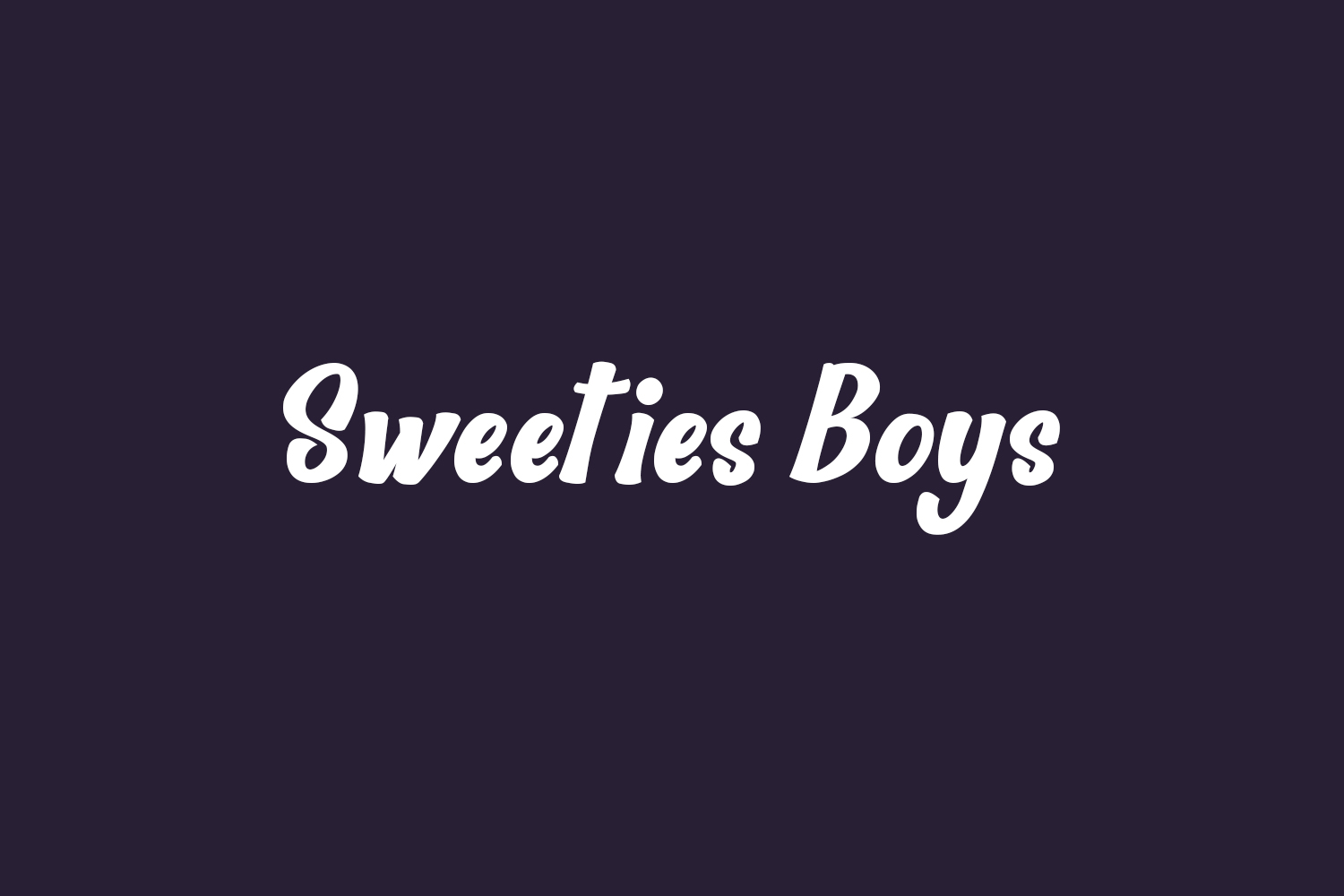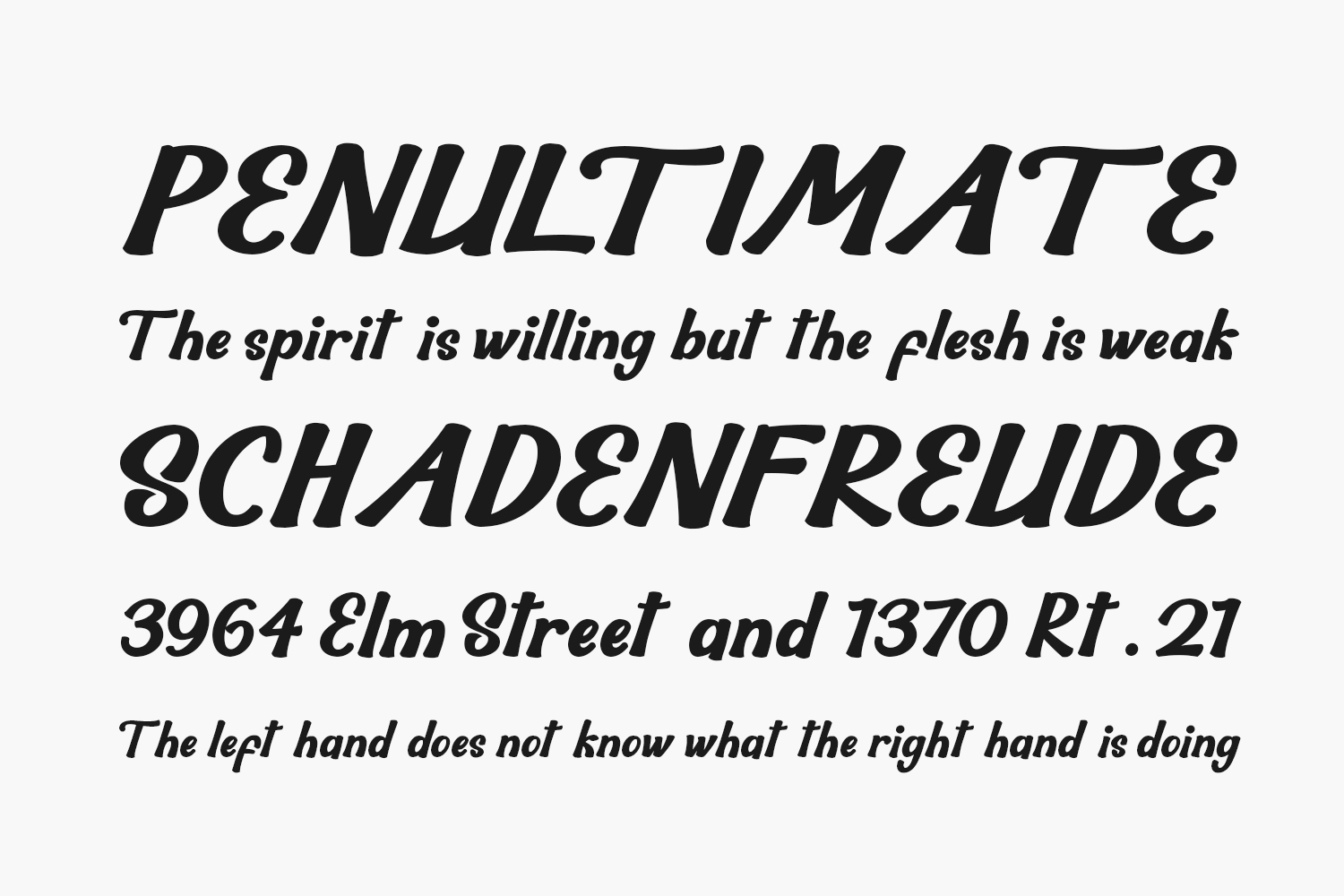
Sweeties Boys Free Font is a lovely display-type font. This typeset is perfect for brand logos, invitations, greeting cards, or even any kind of project. With multilingual features and style variations, this typeface would further enhance the aesthetical aspect of your work. Sweeties Boys Free Font was designed by Display Studio and is free for personal use only. Please purchase the full version for commercial use.